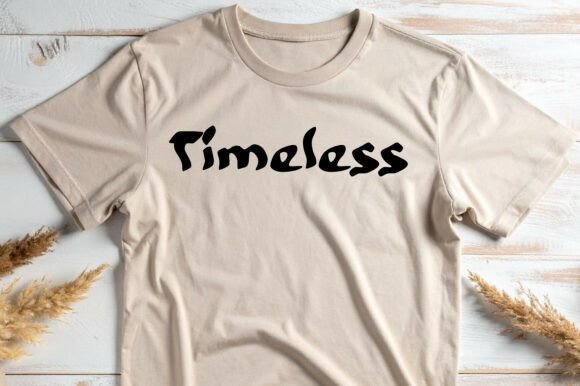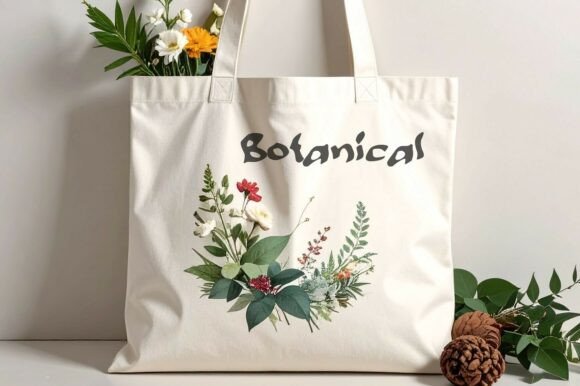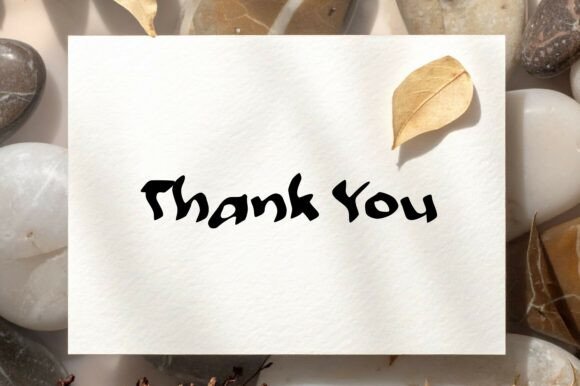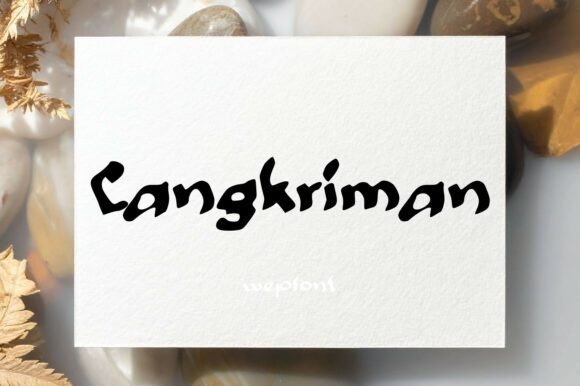
Introduction to Cangkriman Font
Experience the unrefined sophistication and captivating charisma of Cangkriman, a brush-script display typeface pulsating with genuine artistic fervor.
Characterized by its strong rhythm and slightly undulating baseline, this font looks as though it emerged from the confident stroke of an expressionist’s brush Its textured alphabets infuse vitality into its artistry, conveying a depth and persona that is both lively and eloquent.
Key Features of Cangkriman Font